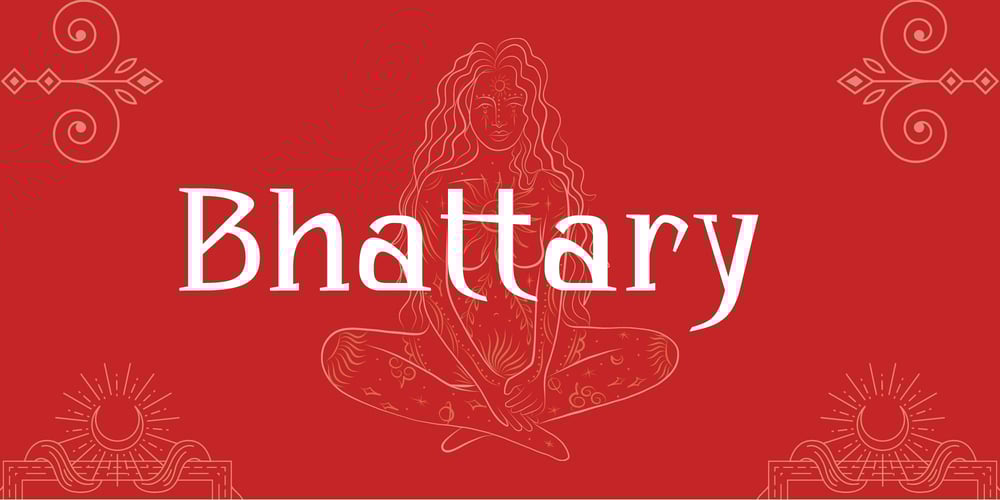
Bhatary Font Family was designed by A A Ngurah A Krisna Teja and published by Anomali Creative. Bhatary contains 18 styles and family package options. Bhatary is a Retro Vintage Serif Font. This Bhatary is suitable to use, if you want to get a more vintage and retro impression in your typography project, but still maintain a modern style in it.Bhatary with a distinct appearance of Retro, 50’s era. the golden era. It works well in posters, CD Cover, T-shirt / merchandise design, magazine,the possibilities are endless!#Retro #Groovy #Vintage #Serif #70s #60s #80s #90s #Psychedelic #RetroFont #VintageFont #1970s #1960s #Bubble #Funky #Funk #ArtNouveau #ArtModern #Retrowave #RetroType #HippyFont #LogoFont #PosterMockup #TrippyFont #WavyFont #GroovyFont #60sFont #HippieFont #Wavy #BohoFont #Hippie #Retro70sFont #Retro90s #Retro80sFont #RetroModern #Nostalgia #Nostalgic #Bubbly #DisplayFont #Ligature #Ligatures #Alternates #Fonts #Sporty #Baseball #CalligraphyFont